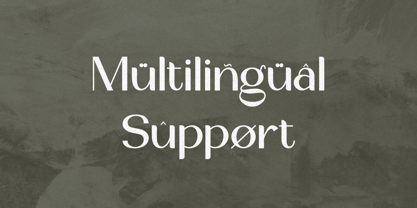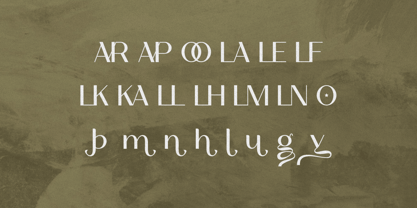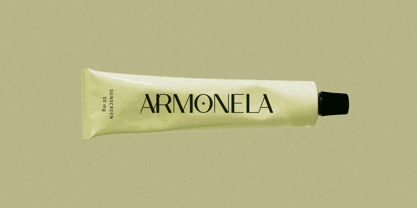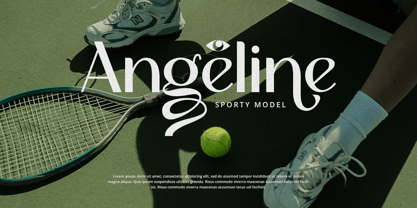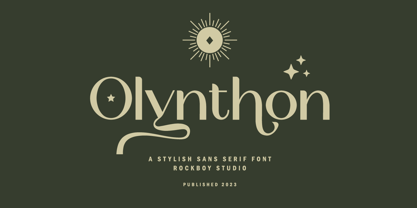
Olynthon
by Rockboys Studio
The Olynthon Font Family was designed by Hayinah and published by Rockboys Studio. Olynthon contains 1 styles.
Olynthon is an elegant and beautiful sans serif font. It will elevate a wide range of crafting ideas, from cards to branding, labels, and many more. Add it to any of your creative projects, and make them look extraordinary!